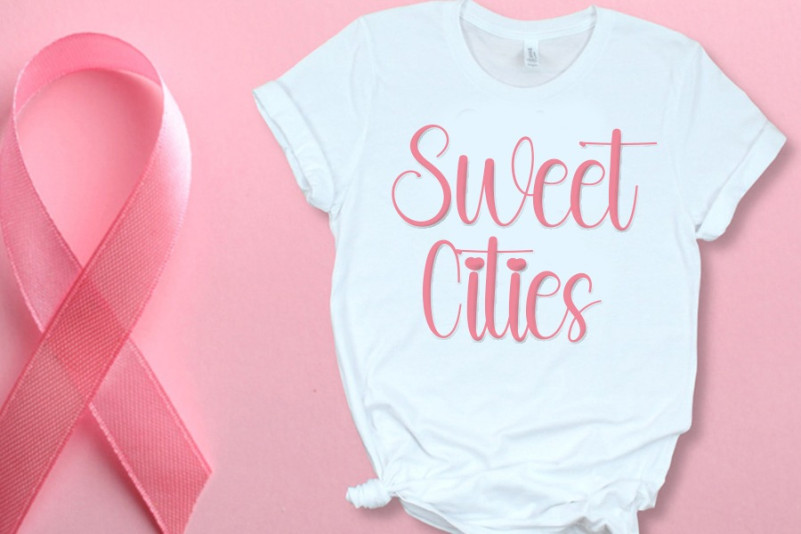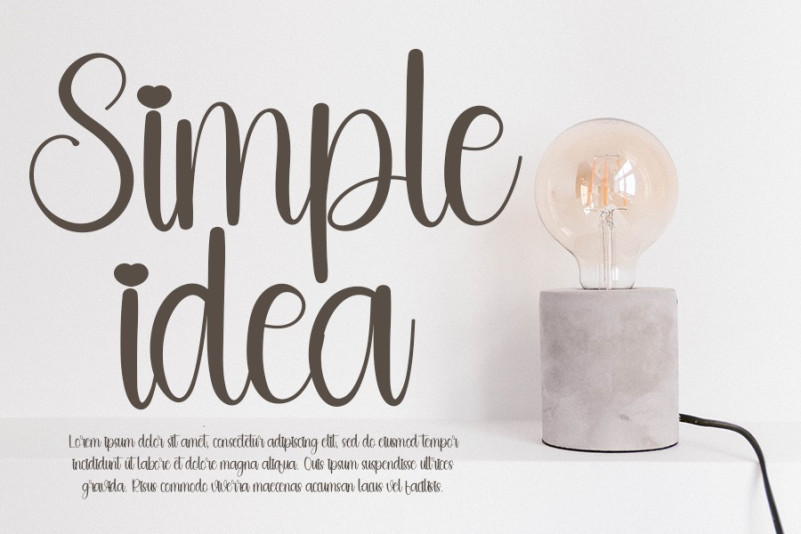
State Font
State Font is an enchanting handwritten display font. This versatile font has a wide spectrum of applications ranging from greeting cards to headlines and is guaranteed to add a romantic feel to your next project.